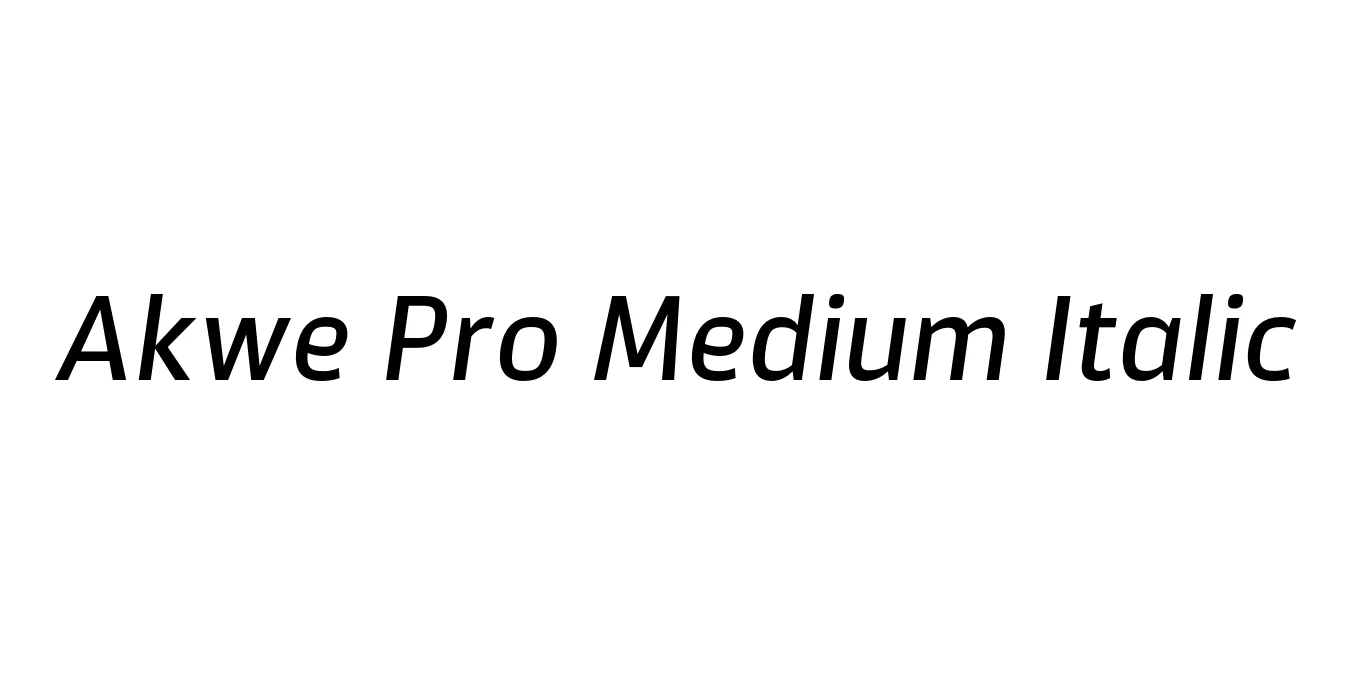
Akwe Pro Medium Italic
Designed by Olexa Volochay
Akwe Pro is a sophisticated humanist sans-serif typeface family designed to bridge the gap between technical precision and organic warmth. Created by Olexa Volochay, this font family stands out for its extensive range of weights and widths, providing a versatile toolkit for modern graphic designers. The Medium Italic variant is particularly noted for its refined slant, which manages to maintain high legibility even in dense blocks of text while adding a distinct professional flair.
The design philosophy behind Akwe Pro focuses on maximizing readability across diverse mediums, from high-resolution print to low-contrast digital screens. It features open counters and a generous x-height, hallmarks of high-quality grotesque-humanist hybrids. This makes it an essential choice for corporate identities, complex user interface systems, and editorial layouts where clarity and aesthetic elegance are equally prioritized.
Akwe Pro Medium Italic Best Uses
Ideal for professional brand messaging, logos, and official corporate documentation.
Perfect for pull quotes and emphasized body text in magazines and journals.
Optimized for readability in app menus, dashboard interfaces, and mobile screens.
Effective for sophisticated marketing campaigns and modern outdoor signage.